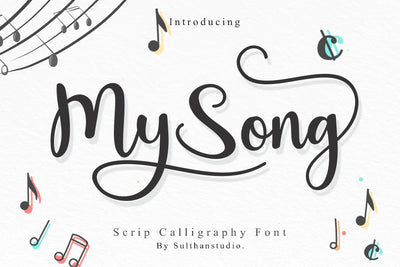
My Song
My Song is a very beautiful calligraphy font, inspired by my everyday songs while working, suitable for all your work that wants to use script fonts.
equipped with uppercase and lowercase letters, numbers, punctuation, swahes, alternatives, ligatures and language support